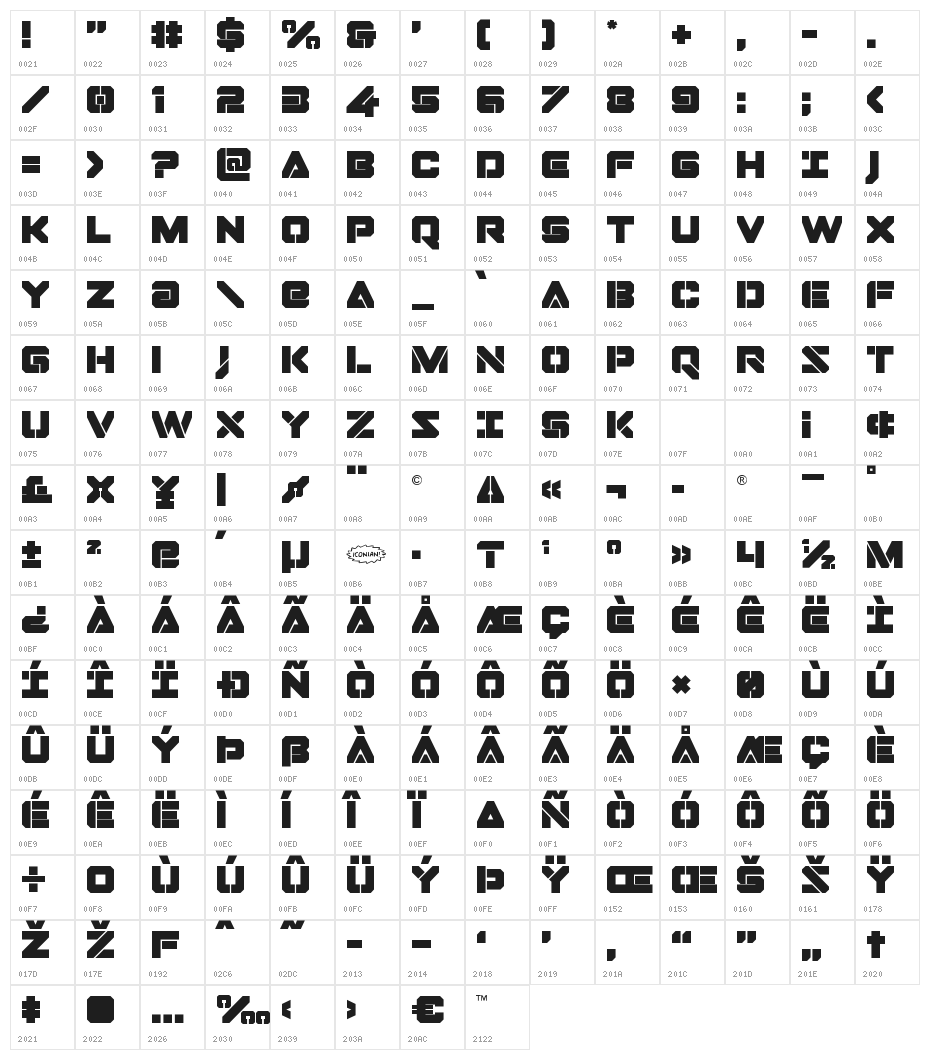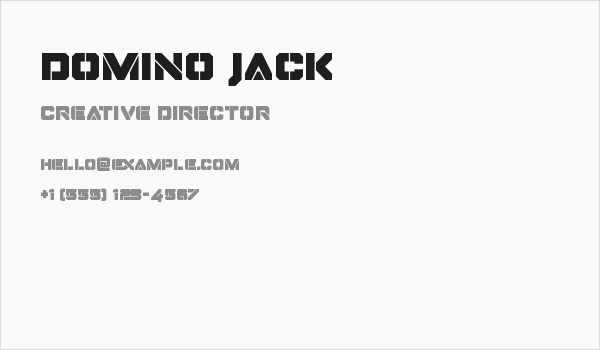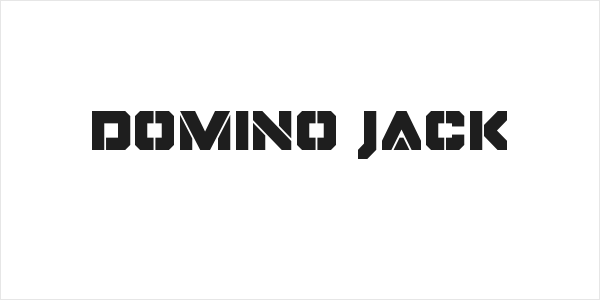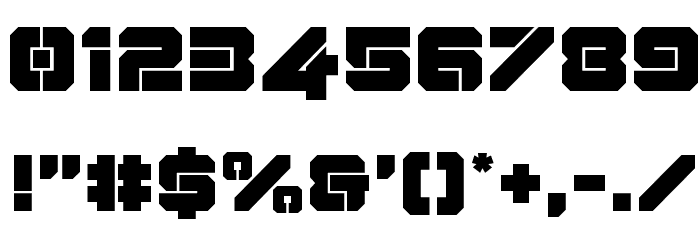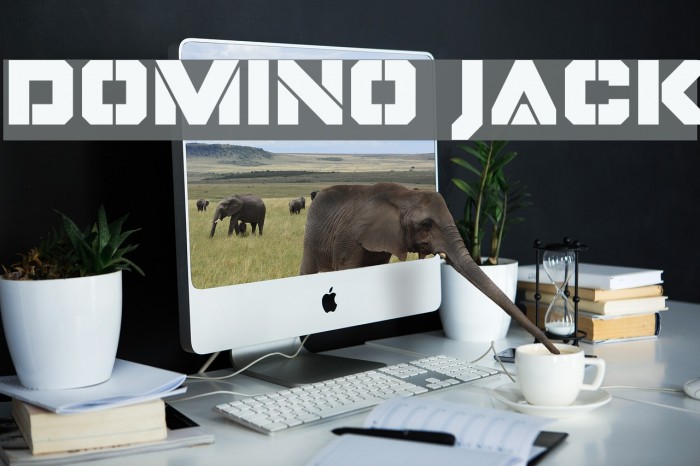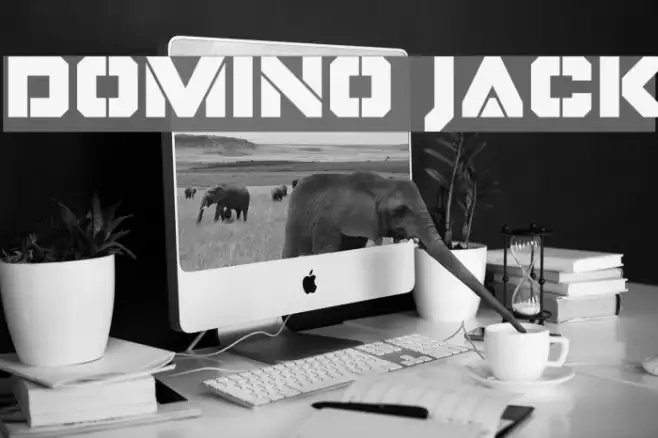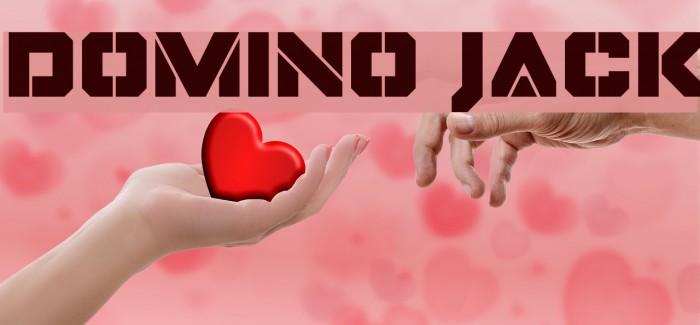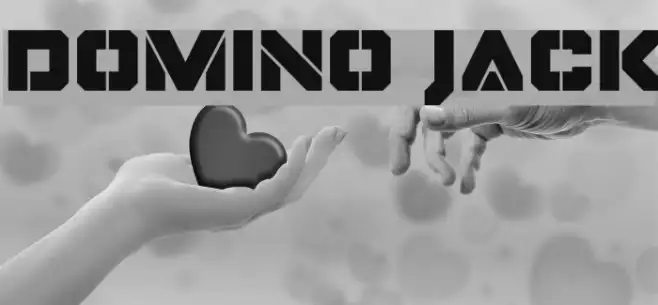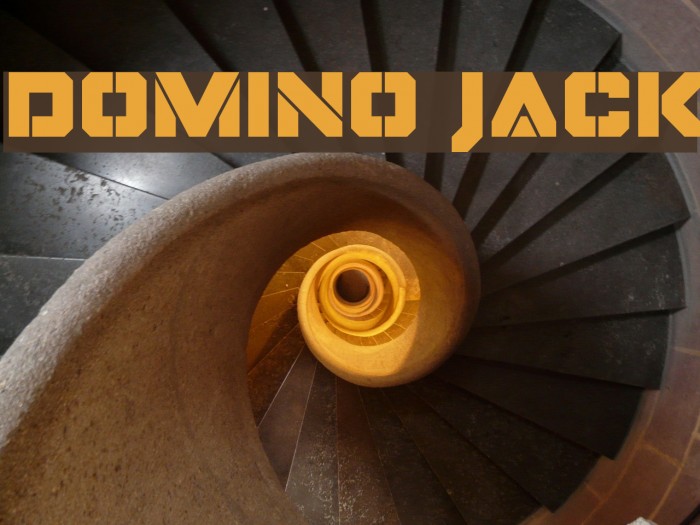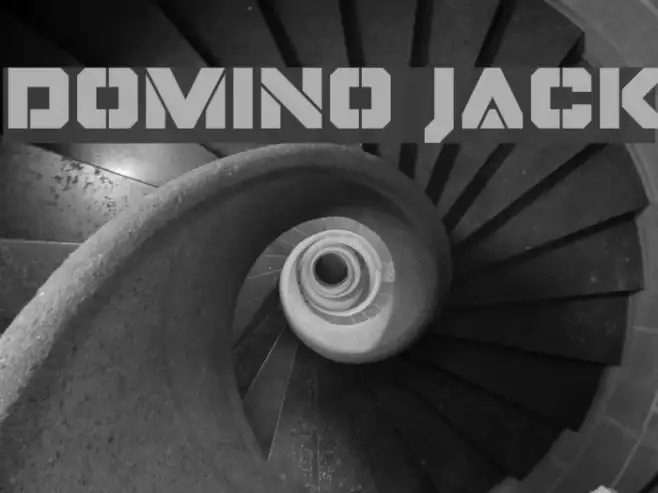
Domino Jack Font
Domino Jack Description
This font features a bold, geometric design with a modern and edgy appearance. The characters are constructed with sharp angles and straight lines, giving it a futuristic and industrial feel. The uppercase letters are uniform in height, while the lowercase letters maintain a consistent style, enhancing readability. Numbers and special characters follow the same design principles, ensuring a cohesive look across all glyphs. The font's strong presence makes it ideal for impactful designs.